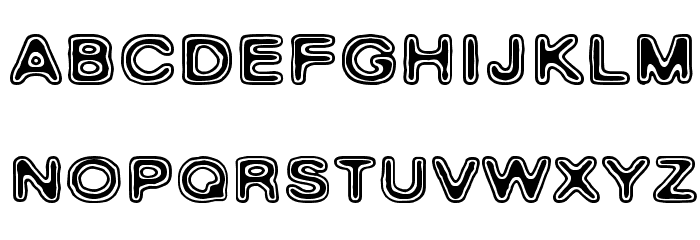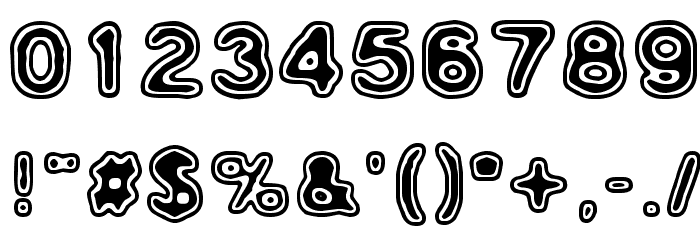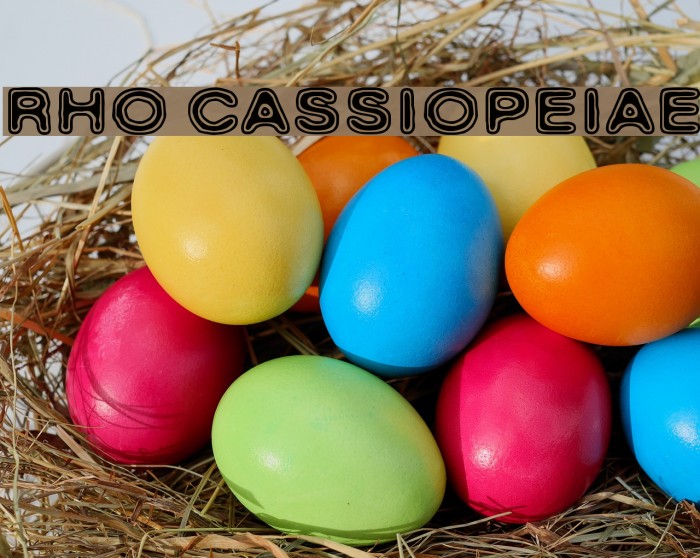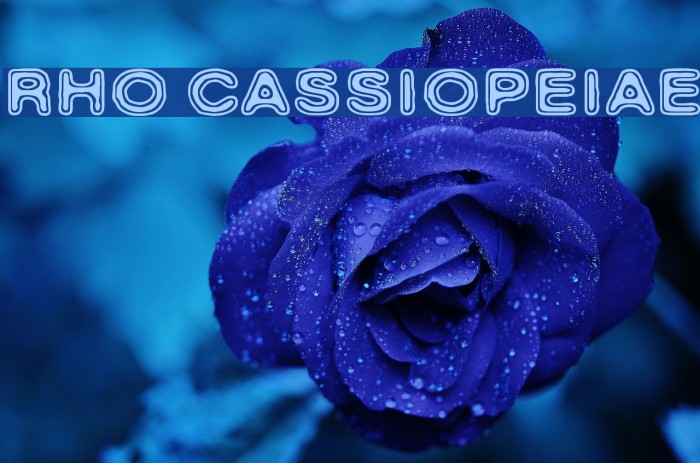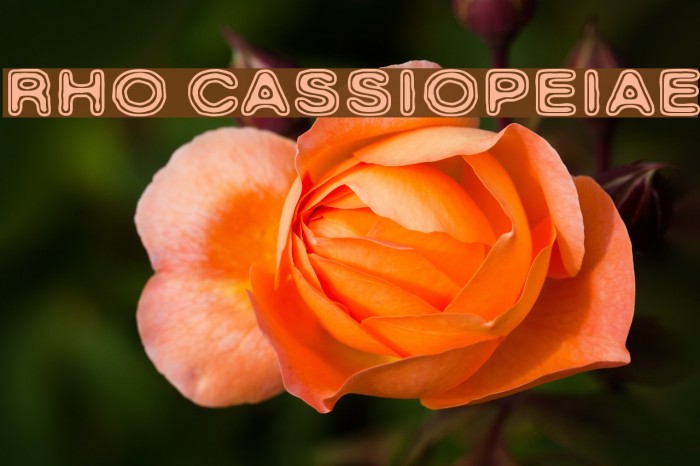
Rho Cassiopeiae Font
This font features a bold, playful design with a unique outline style that gives each character a three-dimensional effect. The letters are rounded and have a consistent thickness, creating a cohesive and visually appealing look. The font includes both uppercase and lowercase letters, numerals, and a variety of special characters, making it versatile for various design needs. Its bold and outlined nature makes it stand out, perfect for eye-catching designs.
A bold, outlined font with a playful, three-dimensional effect.
- Proposed Projects: Ideal for children's book covers, playful branding, posters, and any design that requires a fun and engaging typeface.
- Overall Style: Playful, Modern
- Use Case: Headlines, Posters, Branding